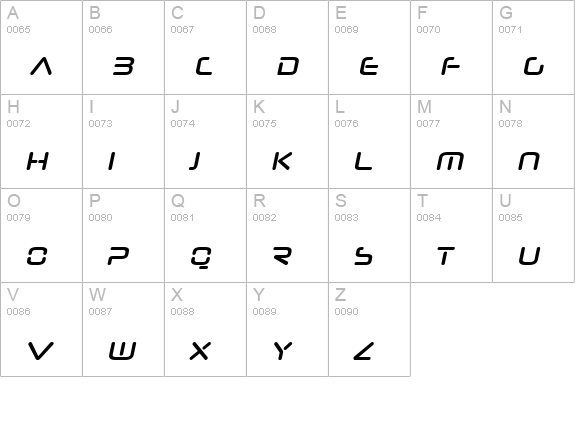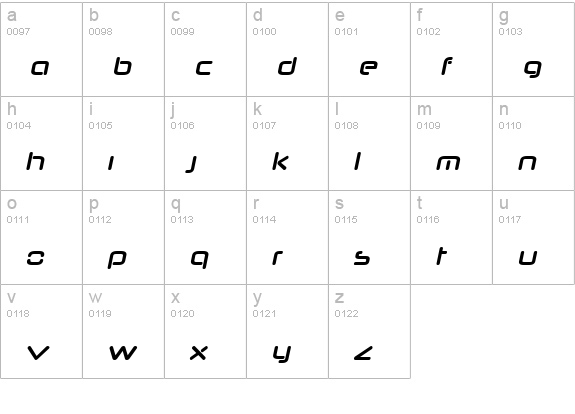
Neuropol Nova Bold Italic Font Details
Neuropol Nova Bold Italic is a strong, high-contrast, italic variant in the Neuropol typeface family \xE2\x80\x94 well suited to headlines, attention-grabbing titles, and strong calls-to-action.
Neuropol Nova Bold Italic is a modern and sleek typeface that will add a futuristic touch to your designs. With its bold and italicized style, this font exudes confidence and sophistication. The sharp angles and clean lines give it a cutting-edge appearance, making it perfect for projects that require a contemporary look. What makes Neuropol Nova Bold Italic even more appealing is that it is available for free download at FontsMarket.com. This means you can easily access this stylish font without any cost, allowing you to enhance your creative work without breaking the bank. Whether you're working on branding, advertising, or any other design project, Neuropol Nova Bold Italic is sure to make a bold statement. Download it today and elevate your designs to the next level!